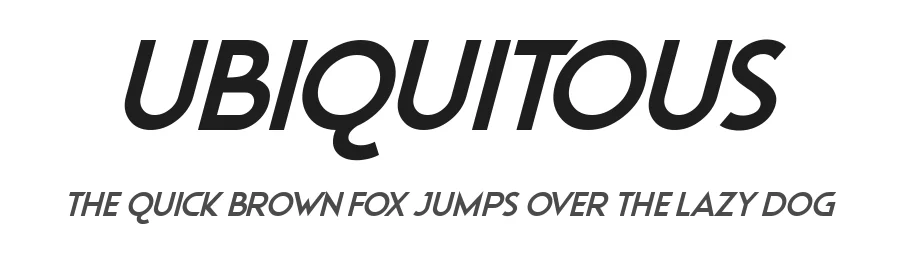
About Ellando Font
Ellando is an italic sans-serif typeface from Fontaris Studio that brings a contemporary slant to clean, geometric letterforms. With 138 glyphs and support for 107+ Latin-based languages, this font delivers reliable readability across diverse design projects and international audiences.
The italic styling positions Ellando as an excellent choice for applications demanding emphasis and visual distinction. Digital designers frequently use it for Figma component labels where the slant signals interactive elements, fashion and lifestyle blog headlines needing personality, social media graphics requiring subtle sophistication, and Shopify product page descriptions that benefit from secondary-level hierarchy. Its straightforward construction keeps the slant legible even at smaller sizes, avoiding the optical distortion that sometimes undermines italic weights.
Fontaris Studio has designed a typeface that remains equally functional in headlines and running text, though the slanted character naturally strengthens decorative applications. The extensive language coverage ensures your message translates across regions without font substitution fallbacks, making it practical for brands with international reach. Available as a free download from this page with licence terms shown there, Ellando best serves projects where clean, modern italics enhance visual communication and design hierarchy.
| Designer | Aris Dpu |
Ellando Font is a versatile sans-serif font that works for both headings and body text. Pair it with a contrasting serif or slab serif font to add visual interest and a clear distinction between titles and body copy.